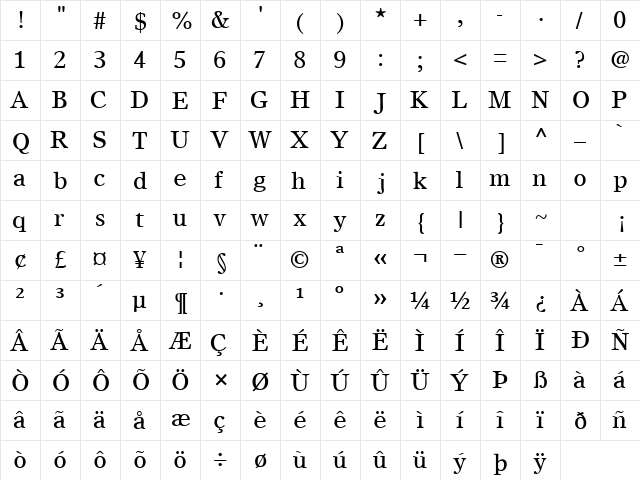
GrecoEuropaSSK Regular
Design Context for GrecoEuropaSSK Typeface
GrecoEuropaSSK offers clean, dependable letterforms without strong stylistic allegiance, making it a practical choice for designers who need flexibility.